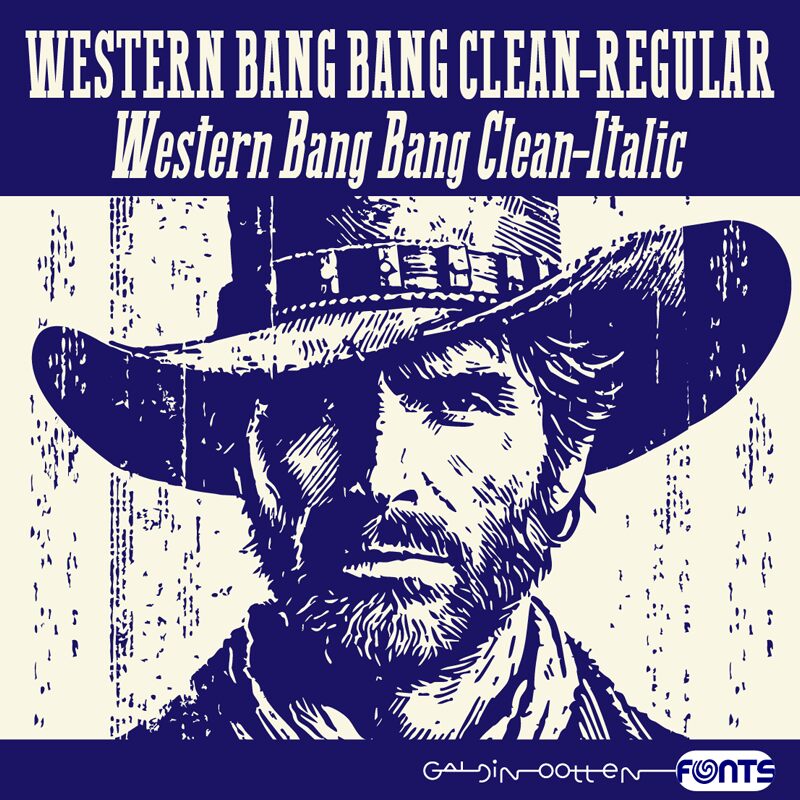
Western Bang Bang Clean Italic
Western Bang Bang Clean Italic font by Galdino Otten Fonts features the strength consistent with traditional mechanical typewriters. This spaced free display font has a condensed, clean, and well-aligned style which makes it quite suitable for large displays and heading purposes.
Readability is its major value but this typeface can be useful in packaging designs, newspaper publications, magazines, labels, advertisements, websites design typography, and more.